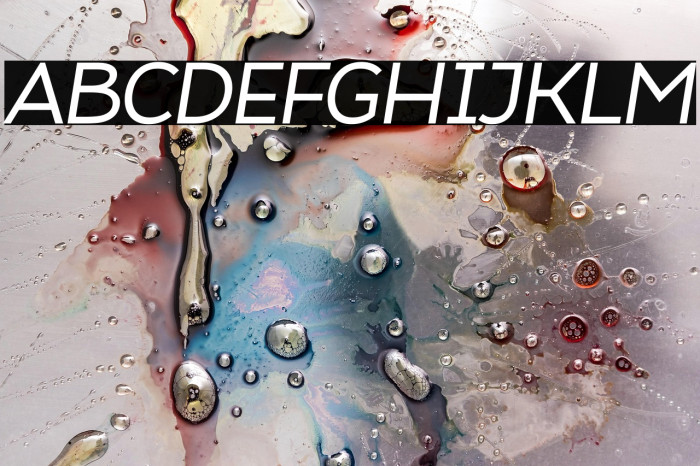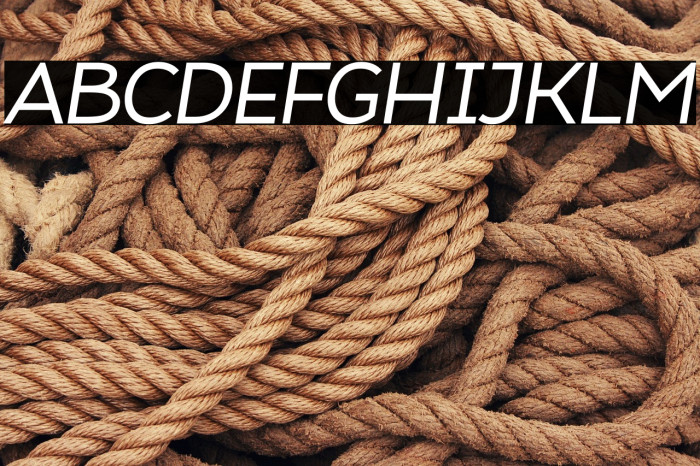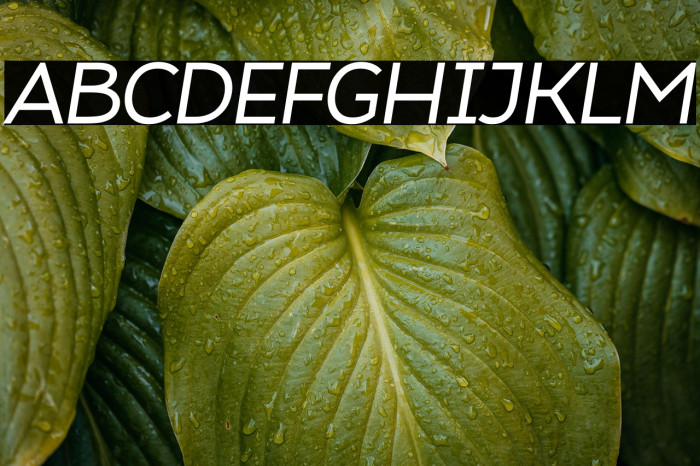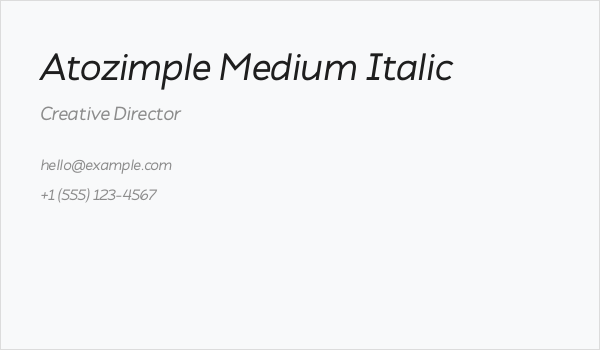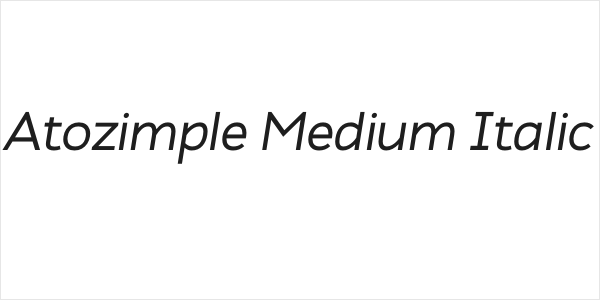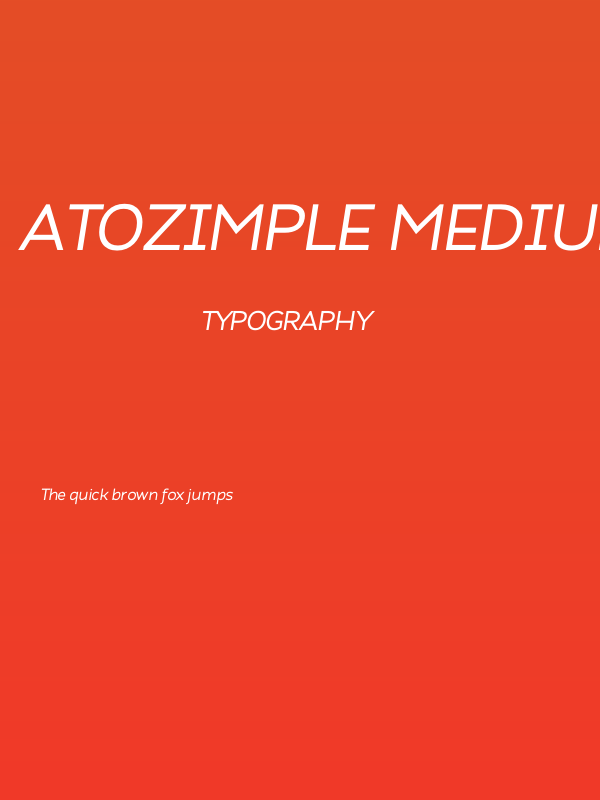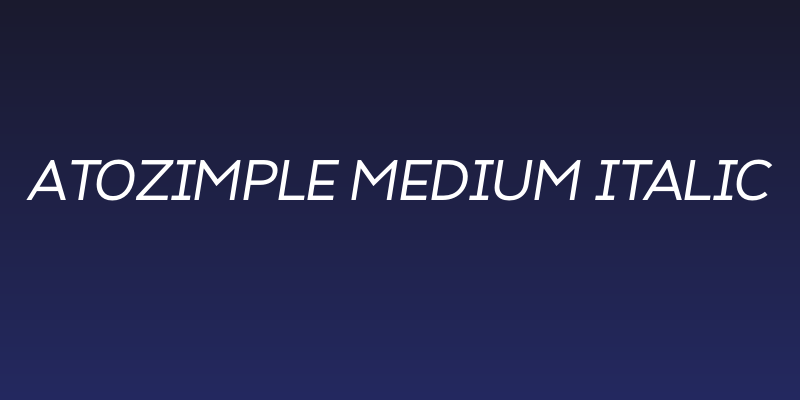
Atozimple Medium Italic Font
Atozimple Medium Italic Description
This font features a sleek and modern design with a slight italic slant, giving it a dynamic and forward-moving appearance. The characters are clean and well-defined, with a consistent stroke width that provides a harmonious and balanced look. The uppercase letters are bold and assertive, while the lowercase letters maintain a friendly and approachable style. The numerals are clear and easy to read, making them suitable for a variety of applications. Special characters are included, offering versatility for different design needs. Overall, this font exudes a contemporary and professional vibe, making it ideal for modern branding and design projects.